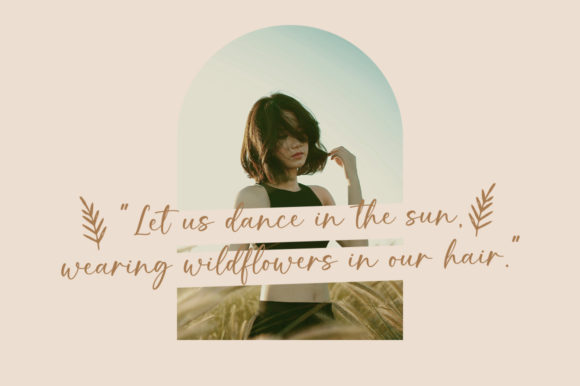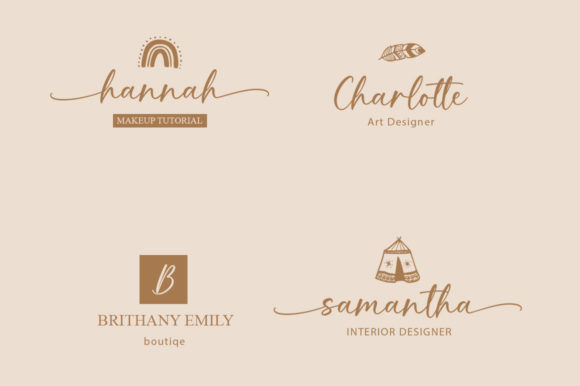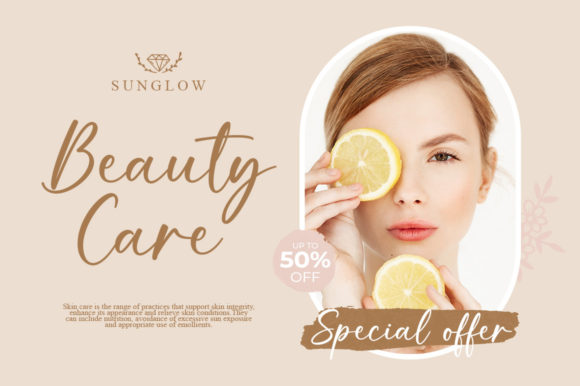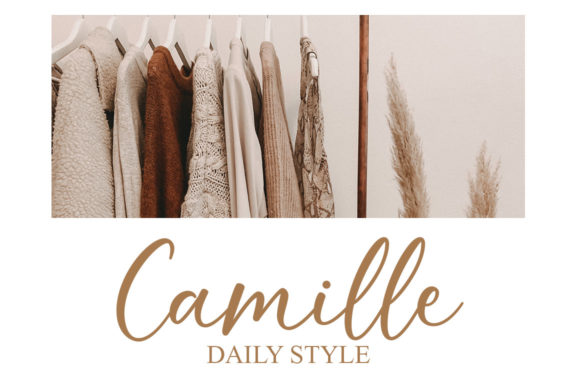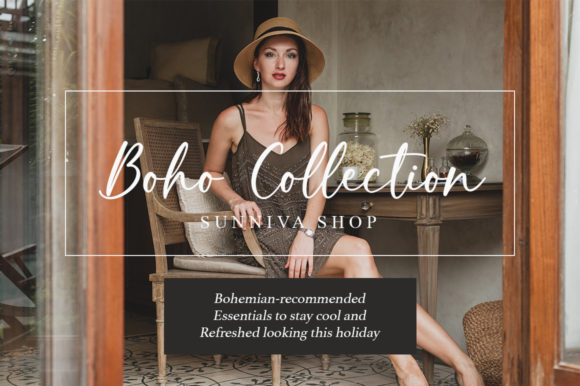
Discover the Magic of the Bohemian Font
As a designer, there’s nothing quite like the thrill of brainstorming a new project. The blank canvas stares back at you, begging for creativity and inspiration. It’s in these moments that the right font can make all the difference. For those seeking a touch of elegance and whimsy, the Bohemian Font is an excellent choice. This lovely handwritten font is perfect for crafting eye-catching logos, branding, and quotes that exude a sense of timelessness and sophistication.
With its PUA encoding, accessing the font’s glyphs and swashes is a breeze, giving you the freedom to unleash your creativity. Whether you’re a seasoned designer or just starting out, the Bohemian Font is an invaluable tool in your arsenal. Its versatility and charm make it a go-to choice for those looking to add a touch of bohemian flair to their designs.
Bohemian Font Key Features
- Font Family: A unique, hand-drawn font family with a bohemian-inspired aesthetic.
- Unique Characteristics: Features a mix of organic and geometric elements, with intricate details and flourishes that evoke a sense of free-spirited creativity.
Bohemian Font Review
As a designer, I was excited to dive into the Bohemian Font and see what it had to offer. Overall, I think it’s a solid choice for any project looking to add a touch of whimsy and elegance.
- The font’s unique blend of traditional and modern elements creates a truly one-of-a-kind look.
- The varied line widths and flourishes add a sense of depth and visual interest.
- The font is highly customizable, making it easy to adjust to your specific design needs.
- The font can be a bit difficult to read in certain contexts, particularly at smaller sizes.
- The sheer number of available styles can be overwhelming, making it hard to choose the perfect combination.
- The font may not be the best choice for projects requiring a clean, minimalist aesthetic.
Overall, I think the Bohemian Font is a great addition to any designer’s toolkit. While it may have some limitations, its unique charm and versatility make it a great choice for a wide range of projects.
For the most out of Bohemian font, use it in creative projects such as:
- Music festival and event branding
- Travel and adventure blogs
Remember to pair Bohemian font with other creative and eclectic elements to create a unique and eye-catching design.
Alternatives to Bohemian Font for Designers
Pacifico is a modern calligraphy font that is perfect for creating a relaxed and elegant feel in your designs. It’s ideal for use in invitations, wedding cards, and other creative projects where a touch of sophistication is needed.
Compared to Bohemian Font, Pacifico is more refined and polished, making it suitable for a wider range of design applications.
Great Vibes is a beautiful, handwritten font that is great for adding a personal touch to your designs. It’s perfect for use in blog posts, social media graphics, and other creative projects where a casual, friendly feel is desired.
Compared to Bohemian Font, Great Vibes is more playful and casual, making it ideal for use in digital design applications where a relaxed atmosphere is needed.
Carolyna Pro is a elegant, script font that is perfect for creating a sophisticated and luxurious feel in your designs. It’s ideal for use in high-end branding, luxury packaging, and other design projects where a touch of glamour is needed.
Compared to Bohemian Font, Carolyna Pro is more refined and sophisticated, making it suitable for use in high-end design applications where a touch of elegance is desired.